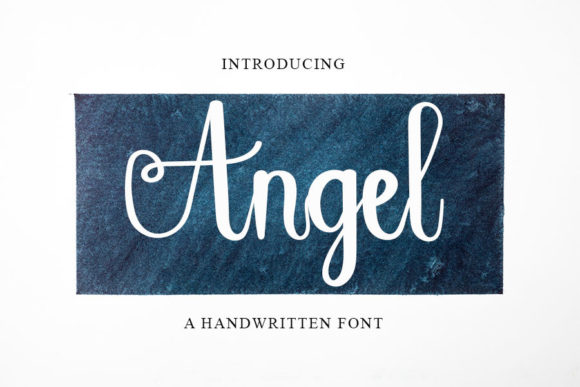
As soon as I saw it, I knew I had found what I was looking for. Angel Font is a slim and delicate handwritten font that exudes a sense of joy and romance. Its dainty and refined appearance makes it perfect for writing wedding invitations, cards, or any other design that requires a personalized touch.
An Honest Review of Angel Font
- ✨ Delicate and refined appearance: Angel Font is perfect for designs that require a touch of elegance and sophistication.
- ✅ Highly legible: Despite its delicate appearance, Angel Font is surprisingly easy to read, making it perfect for body text.
- 💕 Romantic and whimsical feel: Angel Font has a playful and romantic feel that makes it perfect for wedding invitations, Valentine’s Day cards, and other designs that require a touch of whimsy.
While Angel Font is an amazing font, it’s not without its quirks. 🤔 Here are a few things to keep in mind:
- ⚠️ Limited use in bold text: While Angel Font looks beautiful in its regular form, it can get a bit lost when used in bold text. It’s best to use it in its regular or light form for optimal results.
- ⚠️ Some letters may require manual kerning: As with any font, some letters may require manual kerning to get the perfect spacing. But trust me, it’s worth the extra effort! 😊
The Designer Inspiration Behind Angel Font
Angel Font was designed with the intention of creating a beautiful, elegant script font that captures the romance and whimsy of handwritten text. The designer, inspired by the beauty of handwritten letters and the joy of special occasions, set out to create a font that would make designs stand out.
Q: What is Angel Font?
A: Angel Font is a slim and delicate handwritten font designed for designs that require a romantic and personalized touch.
Q: Is Angel Font suitable for body text?
A: Yes, Angel Font is surprisingly easy to read, making it perfect for body text.